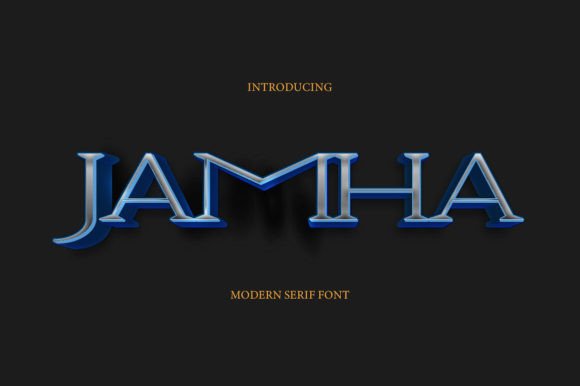
Journey into the world of sophistication and style with **Jamha Font**, a modern serif font that exudes elegance and luxury. This breathtaking font family seamlessly blends classic serif elements with a contemporary twist, resulting in a timeless and versatile typeface that will elevate your creative projects to new heights.
**Jamha Font** is the brainchild of the talented **gunaloe12**, a renowned font designer with a keen eye for detail and an unwavering passion for creating fonts that resonate with users. Every curve, every stroke, every detail of Jamha Font has been meticulously crafted to deliver a font that is both visually stunning and highly functional.
Whether you're designing a captivating logo for your fashion brand, crafting a stunning magazine cover that commands attention, or creating eye-catching social media posts that demand engagement, **Jamha Font** is your perfect companion. Its versatility knows no bounds, making it suitable for a wide range of projects, including:
- **Logo Design:** Create logos that exude sophistication and professionalism, leaving a lasting impression on your clientele.
- **Branding:** Elevate your brand identity with a font that reflects your values and resonates with your target audience.
- **Packaging Design:** Design packaging that captivates customers, enhancing the perceived value of your products.
- **Editorial Design:** Create editorial designs that engage readers and leave them yearning for more.
- **Web Design:** Design websites that are both visually appealing and user-friendly, ensuring a seamless online experience.
- **Social Media Posts:** Craft social media posts that stand out in the crowded digital landscape, boosting engagement and driving traffic to your channels.
- **Flyers and Posters:** Design flyers and posters that command attention, effectively promoting your events, products, or services.
**Jamha Font** is more than just a font; it's a gateway to a world of endless creative possibilities. Let your imagination soar and unlock the full potential of your designs with this remarkable font family.